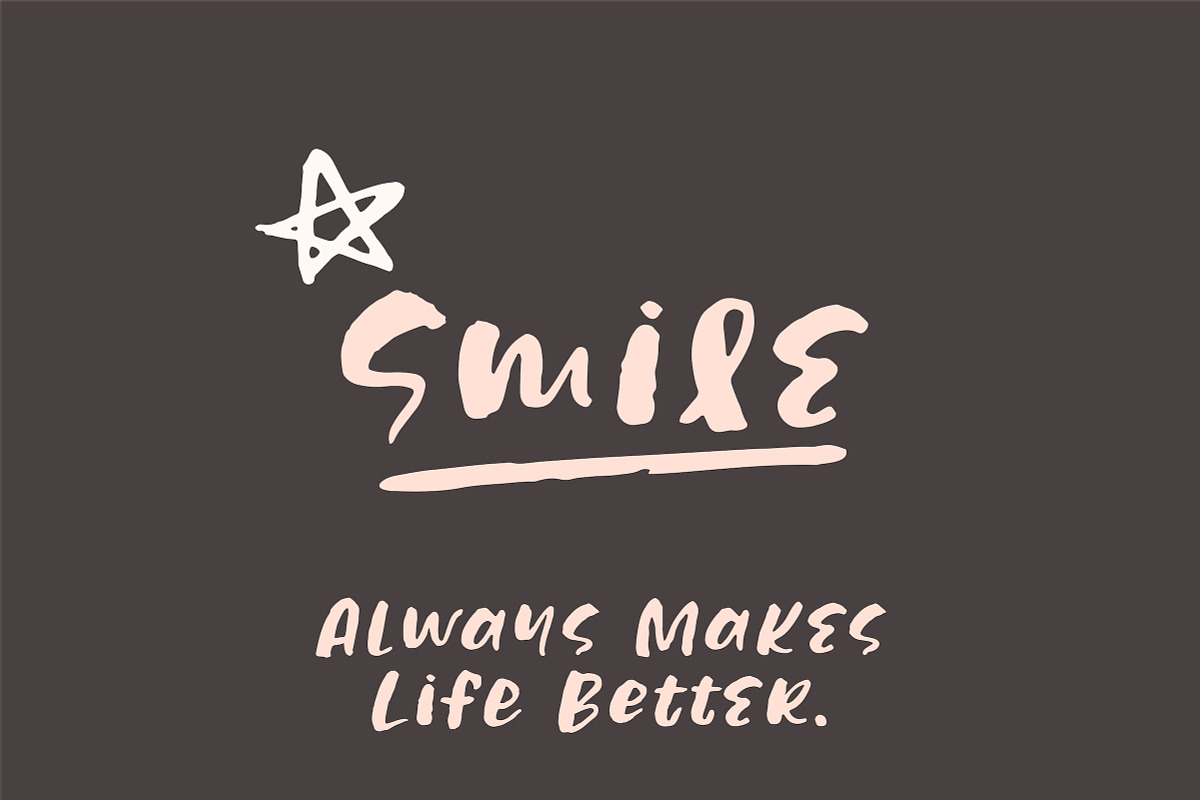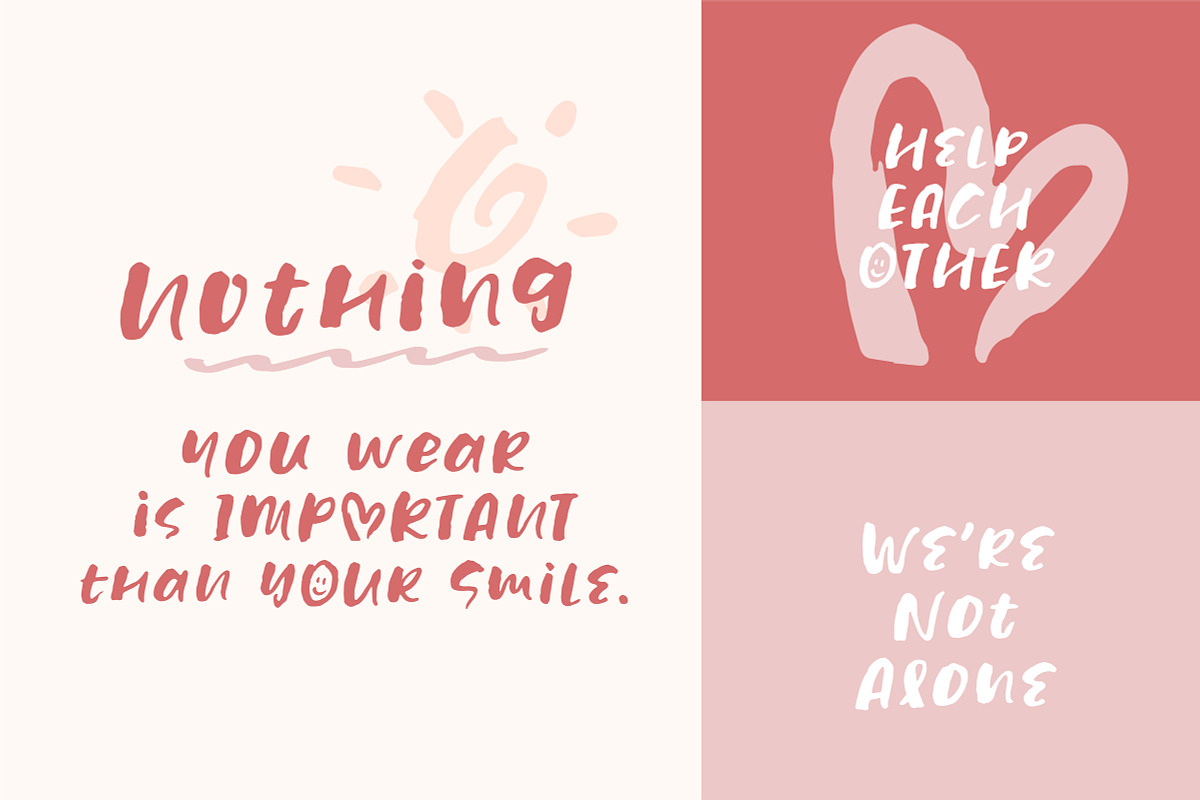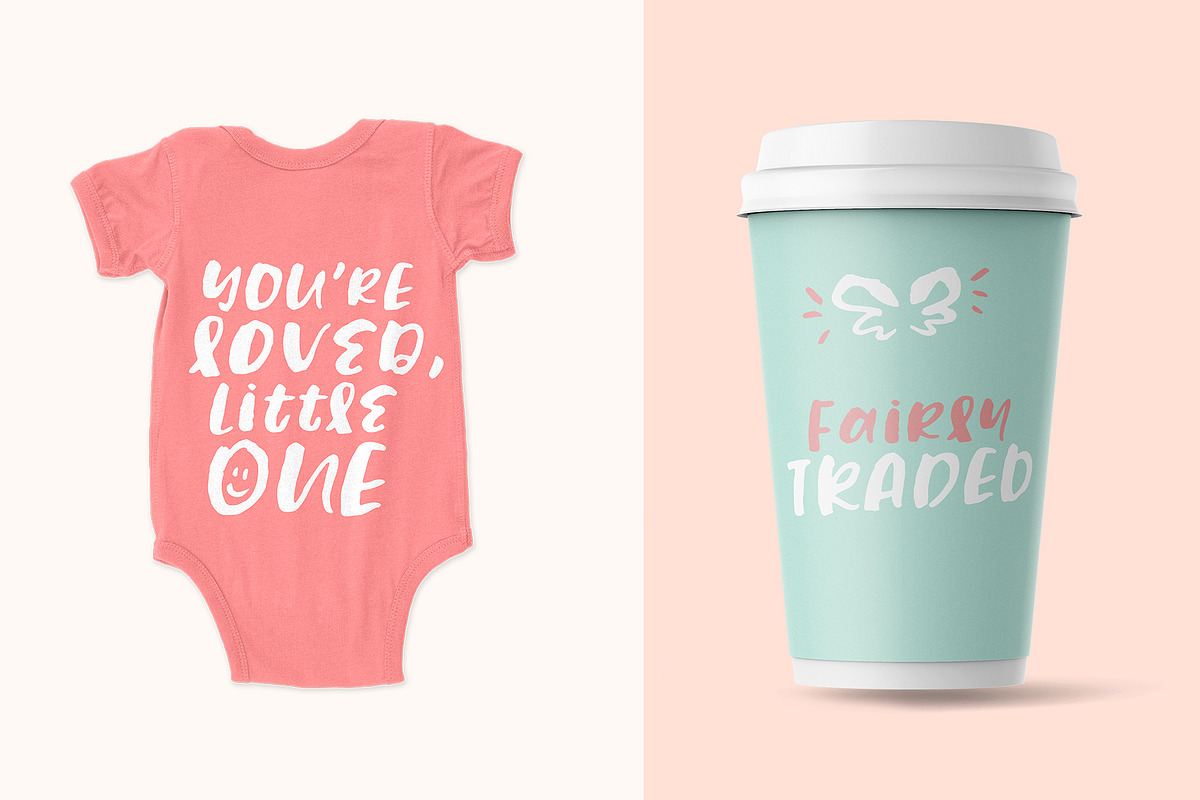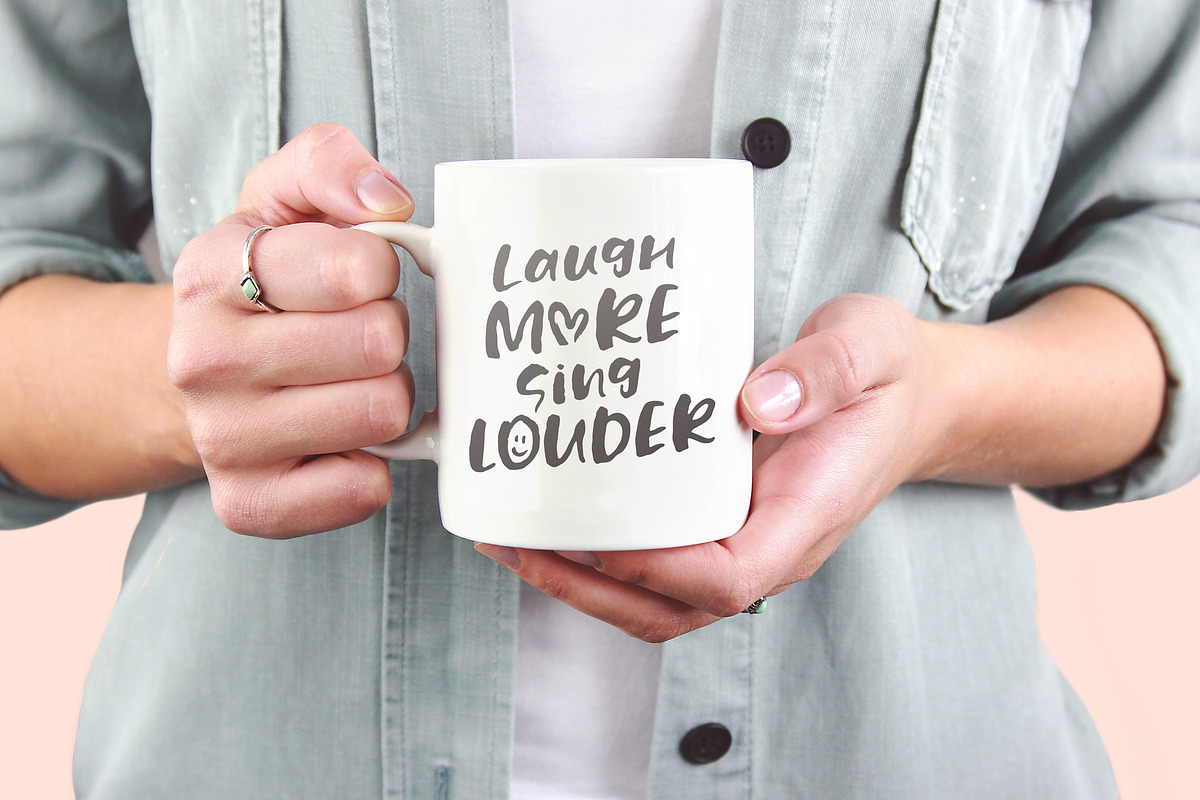
Share Smile - Brush Font + Dingbats
Share Smile is a trendy, inky brush font with warm and relaxing style. This font comes with lots of smiling dingbats. Fully hand-lettered font and emojis were made to give a special personality to your work.
Share Smile will look awesome on the package, stationery, posters, social media project, t-shirt, mugs, logos, branding and any other beautiful design projects.